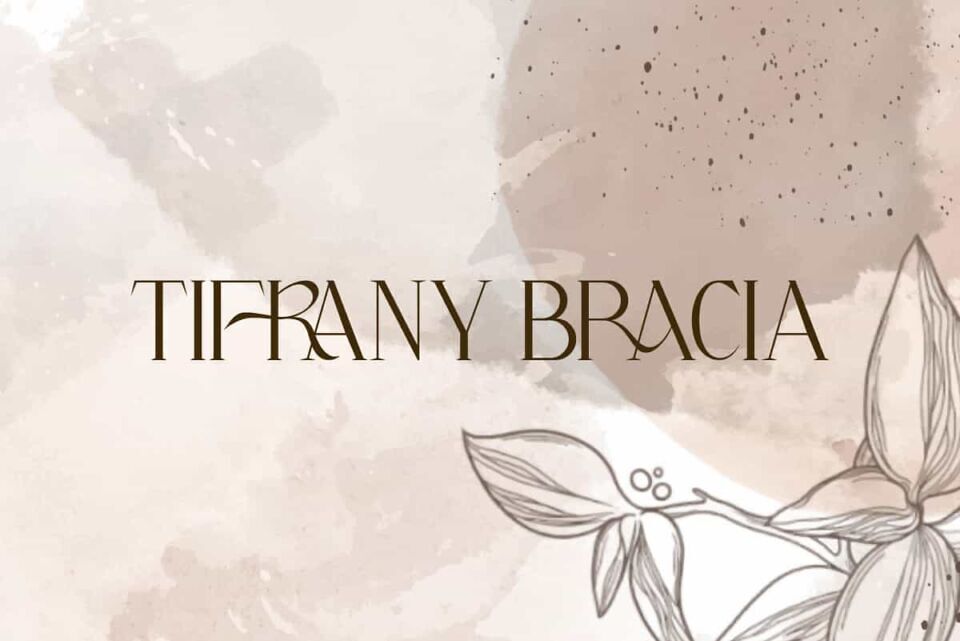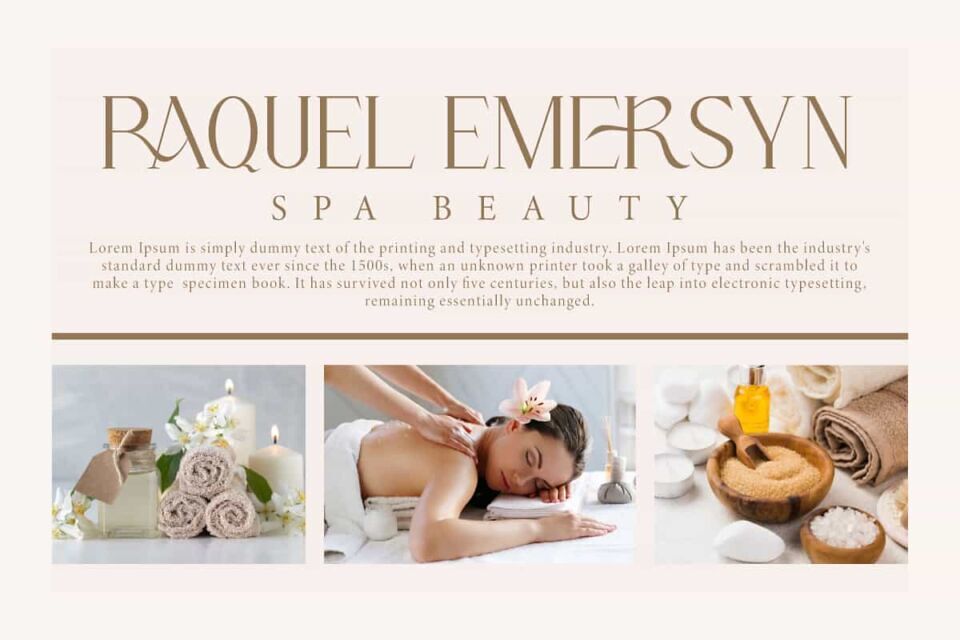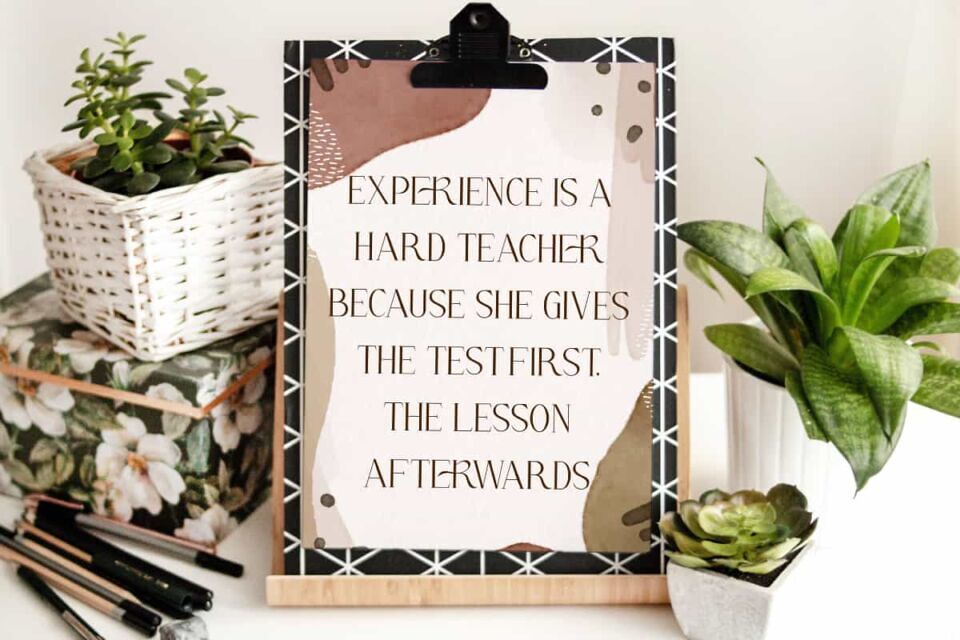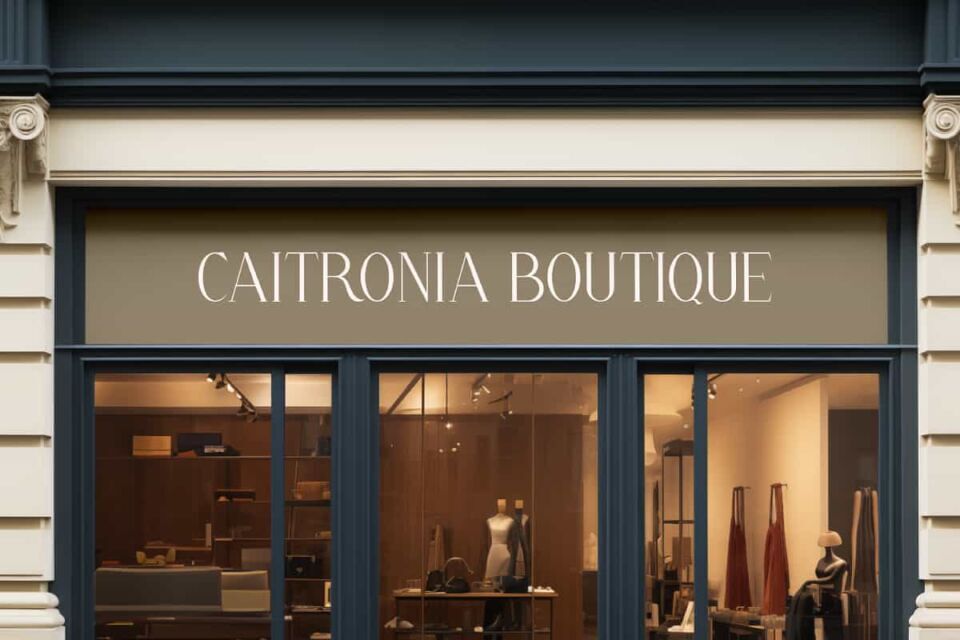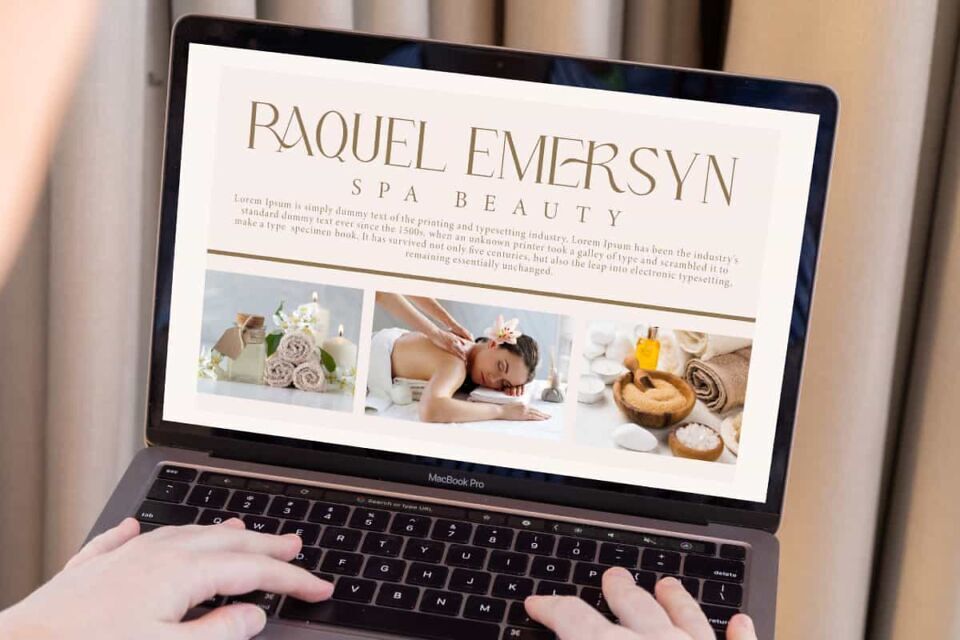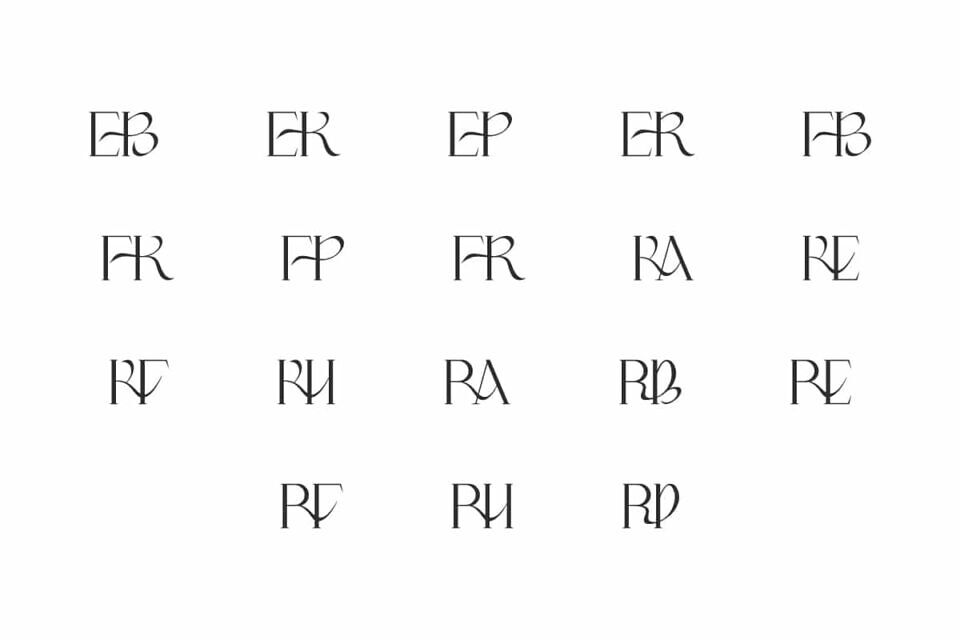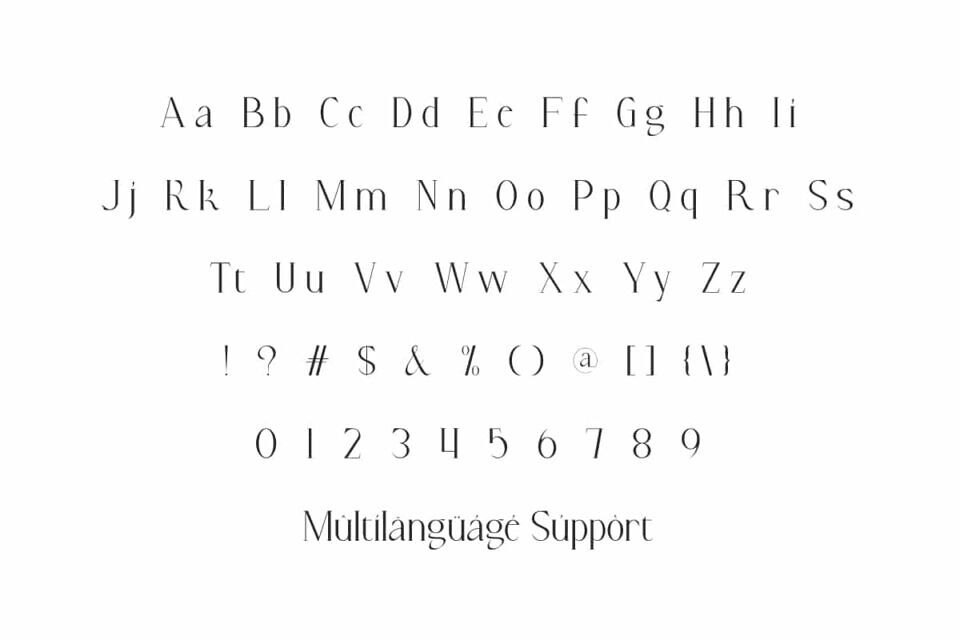
Tifrany Bracia Font is a stunning luxurious serif display font by Vintype Studio. This luxurious font has a combination of beauty and clean look so it can be used for many design concepts, such as advertising, brand image, custom design, invitation, label, layout design, quotes, stationery, template design, website, and more!
Tifrany Bracia Font includes full set of Uppercase and Lowercase Basic Characters, Numerals, Punctuation, and Symbol. The letters for Ligature character are connected and will be perfect for any industries, such as accessories and jewelry, beauty product, event or wedding organizer, fashion, florist, furniture, real estate, spa salon, etc.